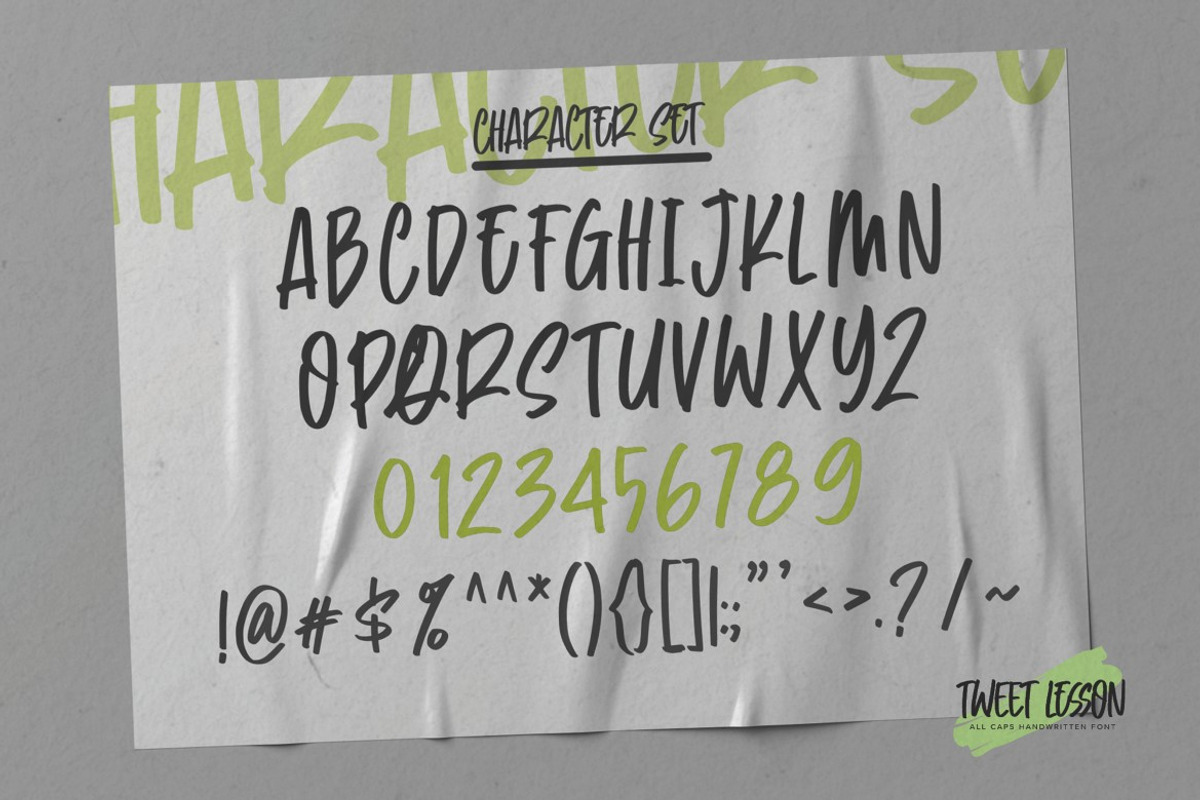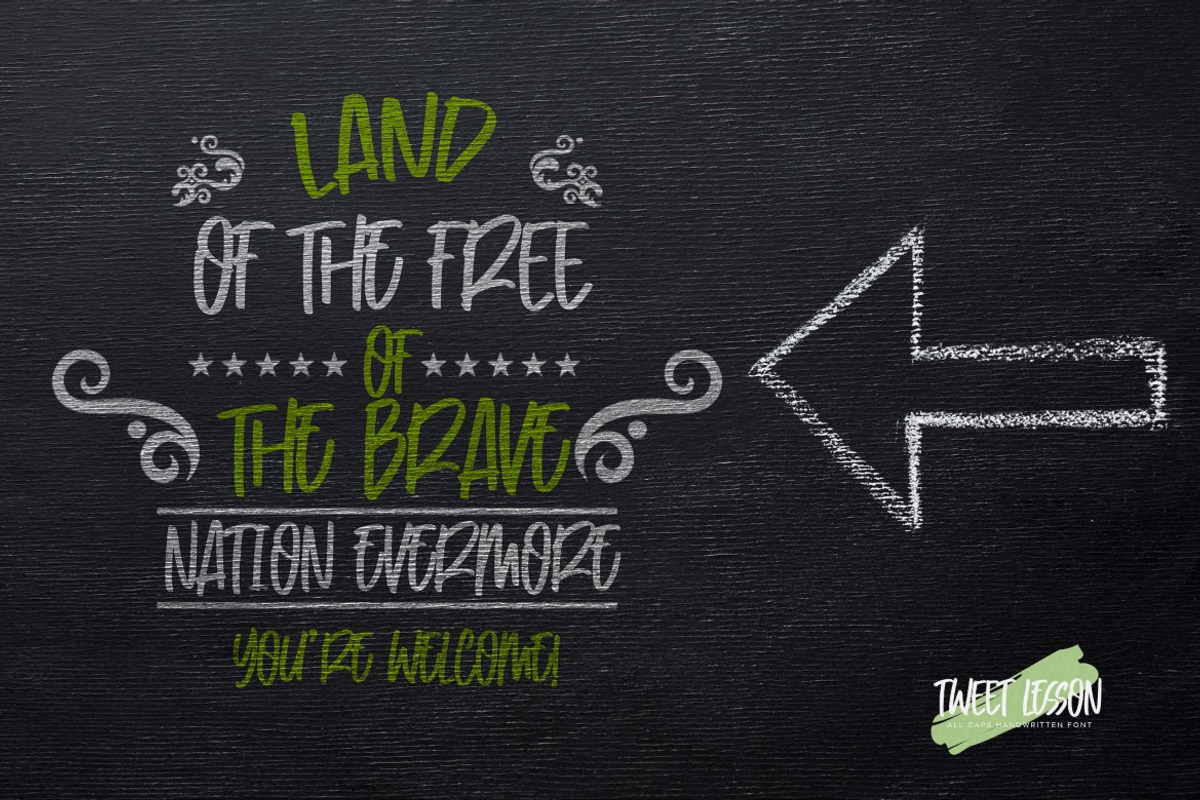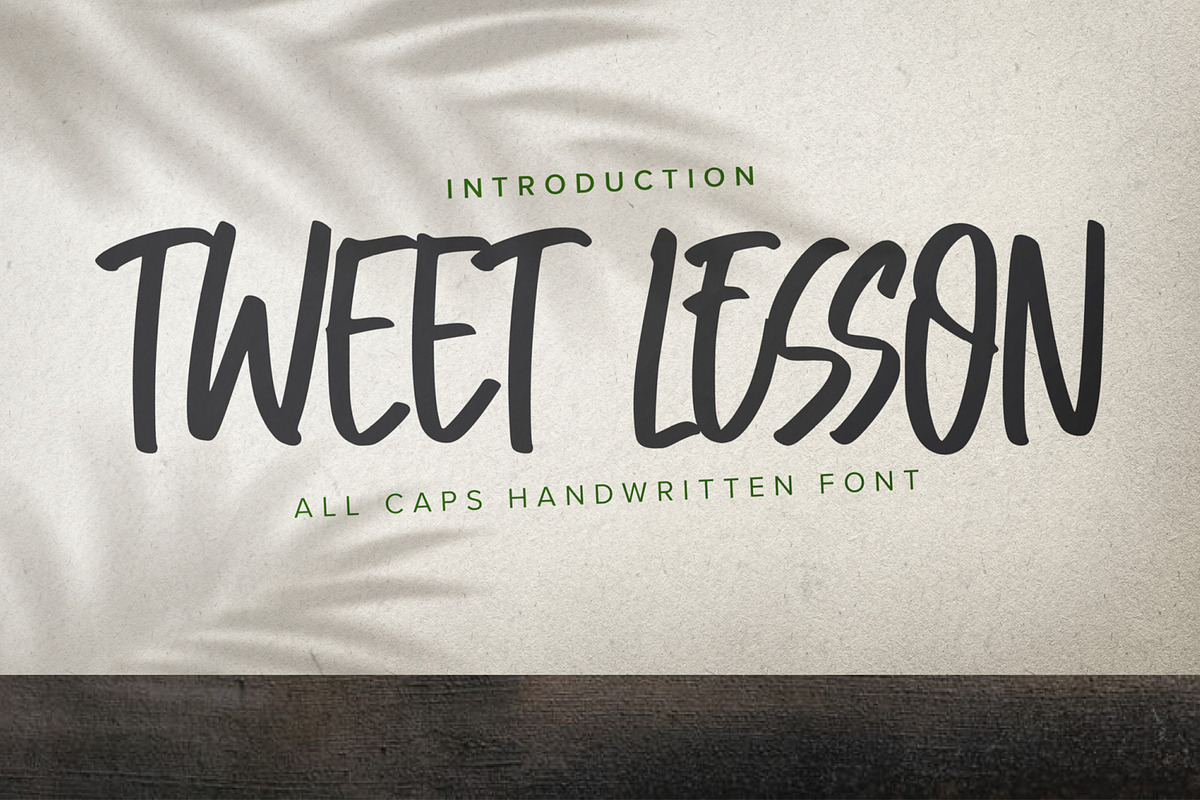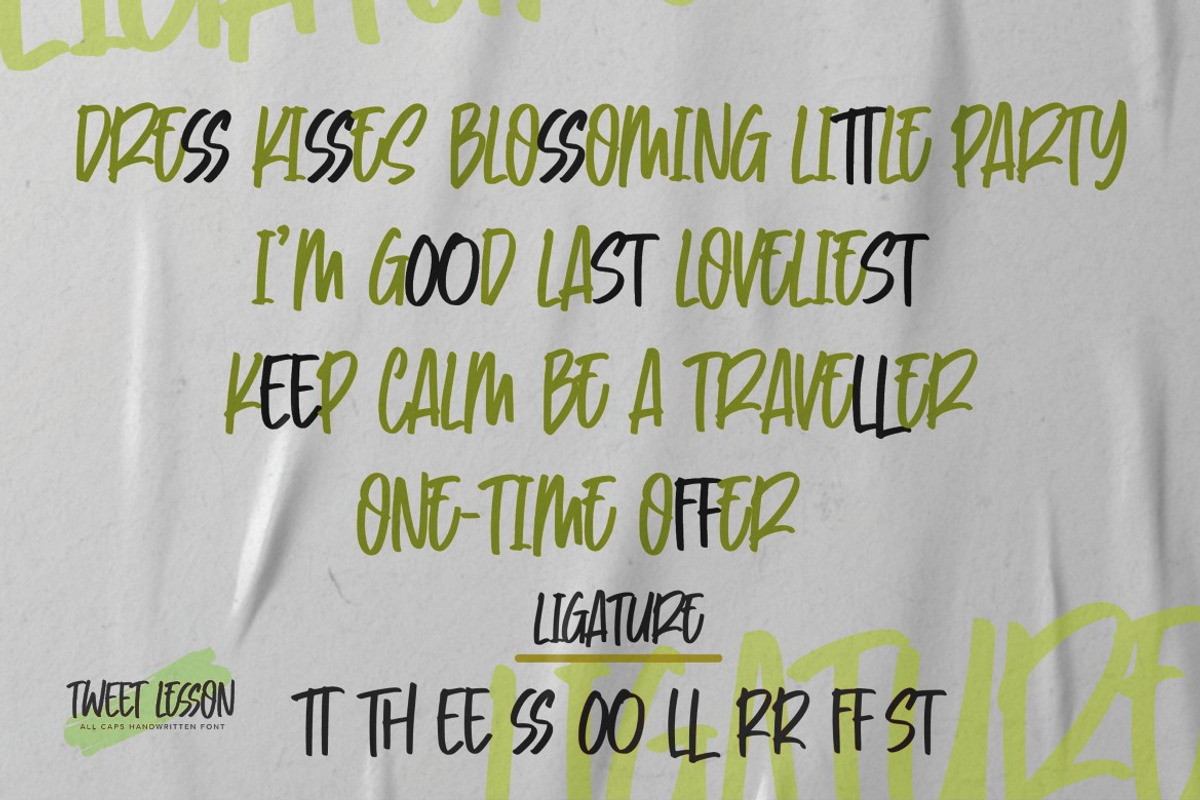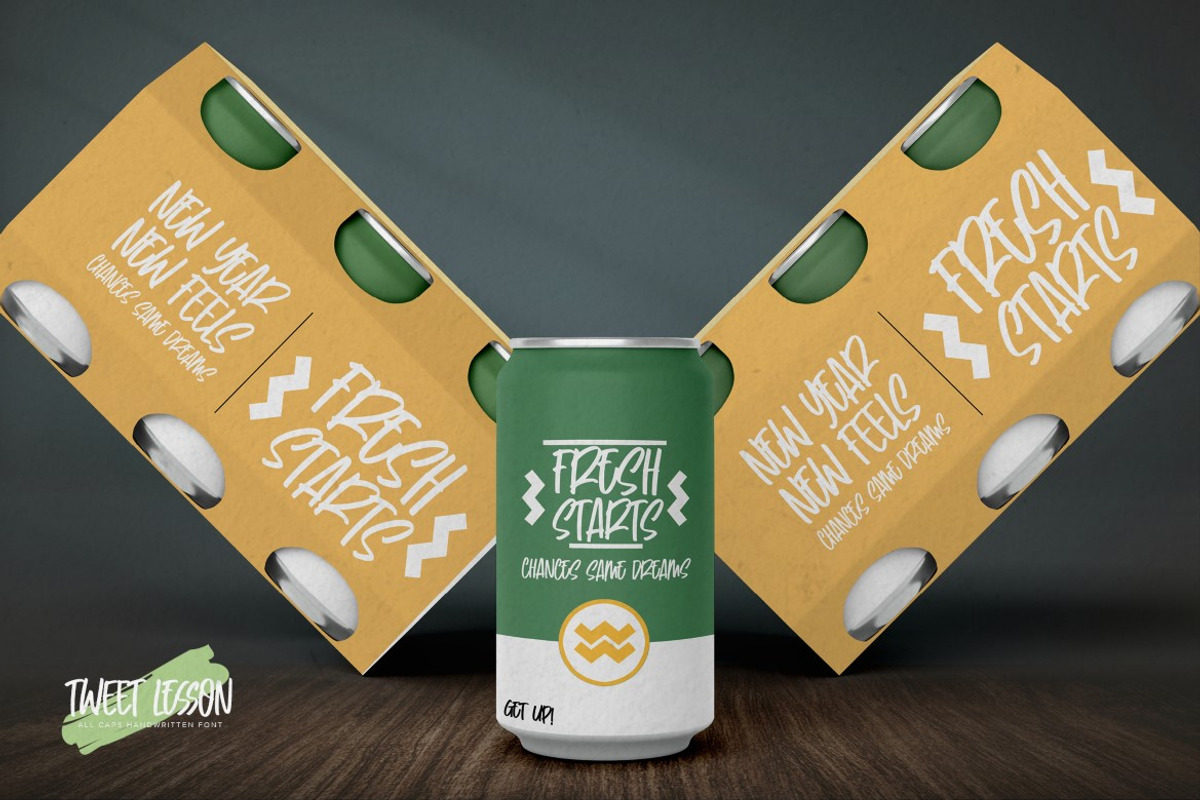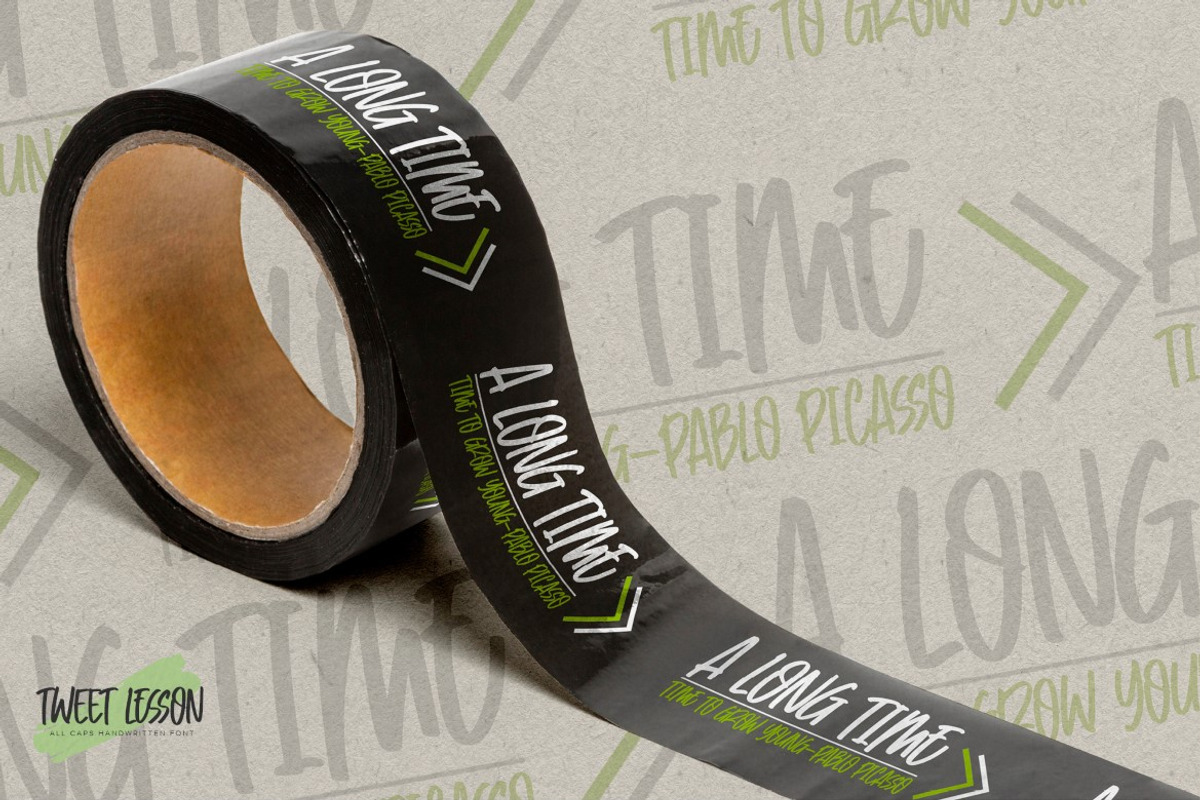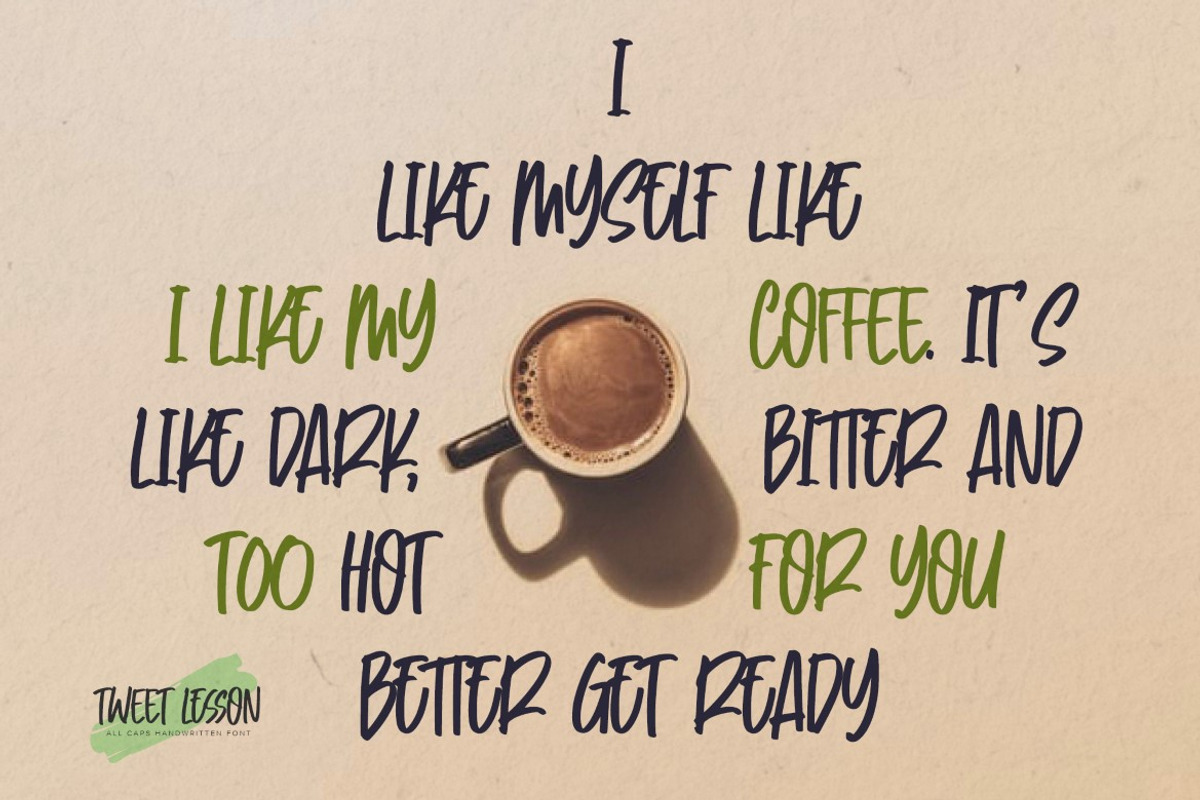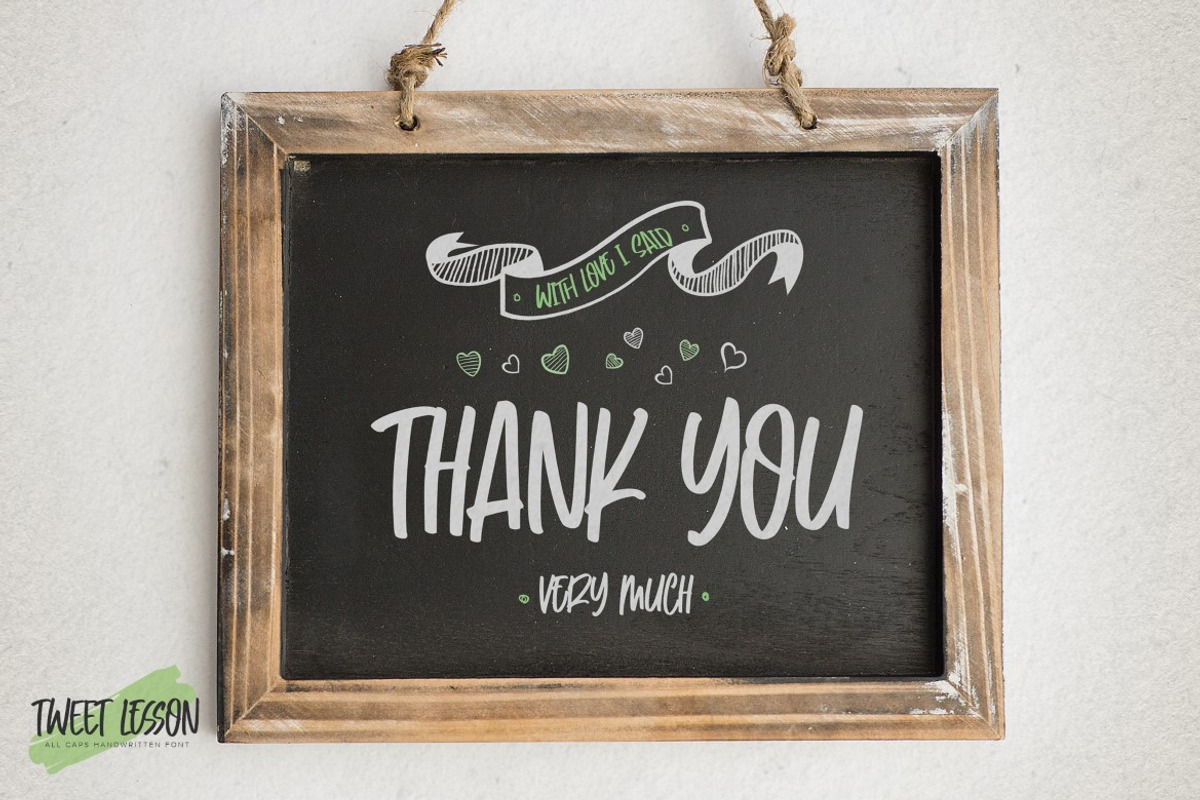
Tweet Lesson- All Caps Handwritten
Tweet Lesson is All Caps Handwritten Playful Display Font that will make your designs look modern, unique and fun. It’s perfect for labels, quotes, posters, DIY projects, branding, packaging, greeting cards, websites, photography overlays, signs, window art, scrapbooking, tags and so much more!